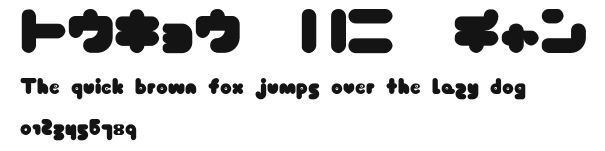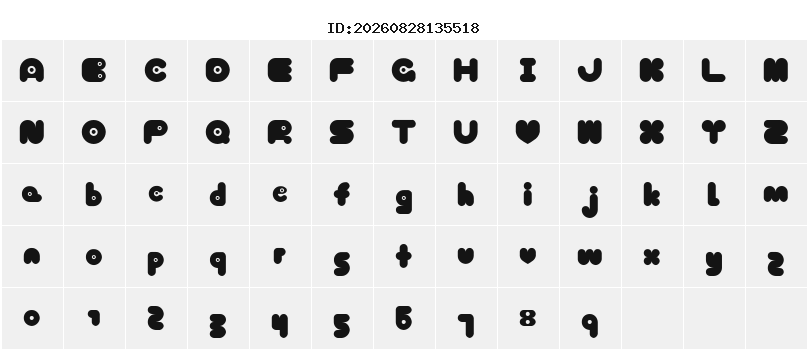
トウキョウ ハニーチャン Preview
• Font Name: トウキョウ ハニーチャン
• PostScript Name: Tokyo-Honey-Chan
About トウキョウ ハニーチャン.ttf
トウキョウ ハニーチャン.ttf is a modern, elegant sans-serif font designed for ultimate readability and visual harmony. Perfect for branding, headlines, web design, and print materials.